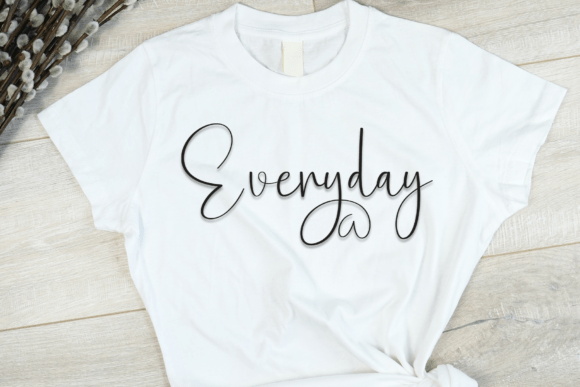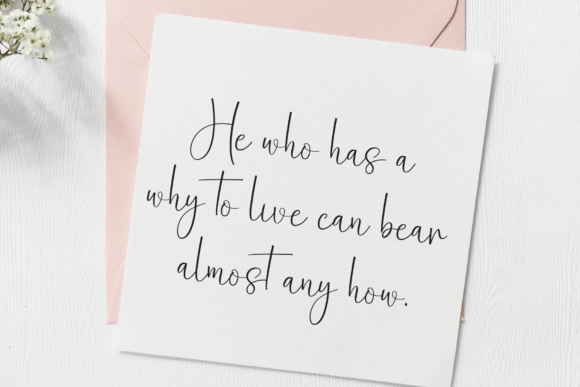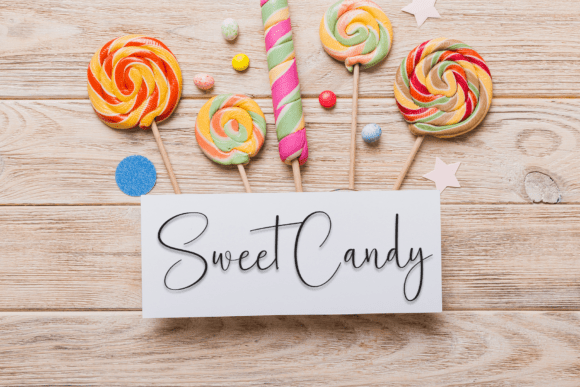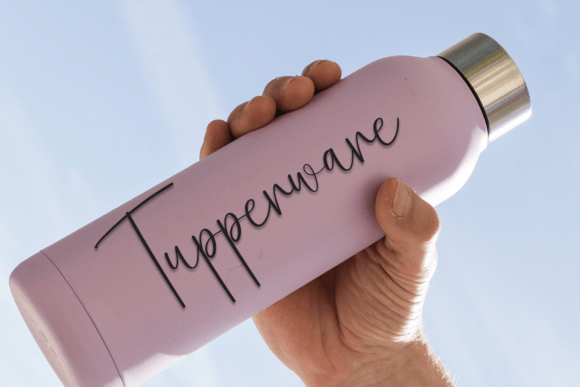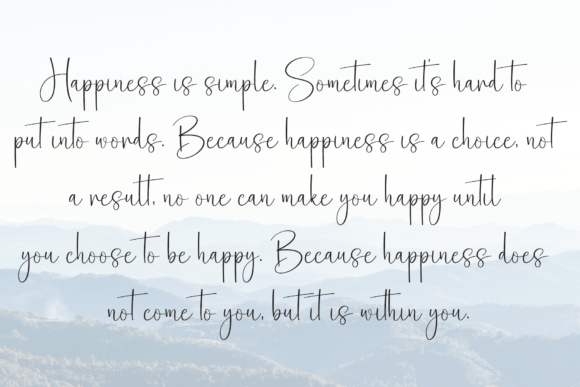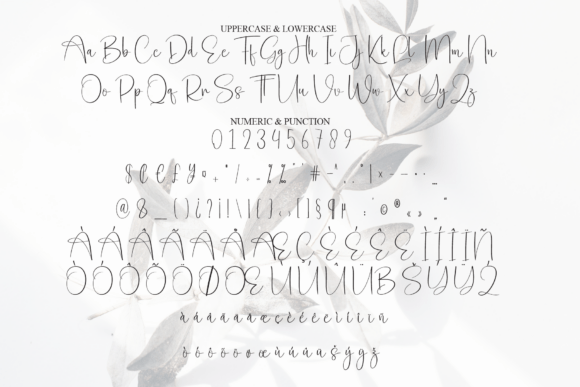
Introducing Delight Simple Font: Elevate Your Designs with Elegance and Whimsy
In the world of typography, few fonts manage to strike a balance between elegance and playfulness. Delight Simple Font is one such gem that brings a delicate, whimsical touch to any design project. This beautifully crafted handwritten font is perfect for designers, crafters, and anyone looking to add a personal and sophisticated flair to their work.
The Essence of Delight Simple Font
Delight Simple is characterized by its airy, graceful style, making it an excellent choice for projects that demand a sense of refinement and charm. The font features fine strokes that contribute to its delicate appearance, while charming swashes add a decorative element, perfect for titles, headings, and emphasis. Each letter in Delight Simple exudes warmth and elegance, ensuring that your designs stand out with a unique personality.
The versatility of Delight Simple Font makes it suitable for a wide range of applications. Here are some of the ideal uses for this beautiful font:
- Branding: Give your brand a touch of sophistication and approachability with Delight Simple. Its elegant and yet playful nature makes it perfect for logos, business cards, and brand guidelines.
- Invitations: Whether it’s a wedding invitation, birthday party, or baby shower, Delight Simple adds a whimsical and personal touch that sets the tone for your event.
- Greeting Cards: Create beautiful and heartfelt greeting cards for any occasion. The font’s charm and elegance shine through in physical or digital cards.
- Creative Projects: From DIY crafts to digital art, Delight Simple can be used to add a personal and unique element to your creations. It’s perfect for quotes, posters, and social media graphics.
Why Choose Delight Simple Font?
With so many fonts available, what makes Delight Simple stand out? Here are a few reasons why designers and crafters prefer Delight Simple:
- Unique Personality: Delight Simple offers a distinct look that can help your designs stand out in a crowded digital landscape.
- Ease of Use: Despite its elegant appearance, Delight Simple is easy to read and works well in both digital and print formats.
- Customization: The font comes with swashes and fine strokes that can be adjusted to fit your project’s needs, offering a high level of customization.
- Timeless Appeal: Unlike trendy fonts that may quickly go out of style, Delight Simple’s classic elegance ensures it remains relevant for years to come.
Tips for Using Delight Simple Font
To make the most of Delight Simple Font, consider the following tips:
- Pair with Complementary Fonts: For body text, pair Delight Simple with clean, sans-serif fonts to create contrast and enhance readability.
- Adjust Size and Color: Experiment with different sizes and colors to make your text stand out. Delight Simple looks stunning in pastel shades and soft neutrals.
- Utilize Swashes: Don’t be afraid to use the swashes to add flair to your headings and titles. They can make your text more visually appealing.
Delight Simple Font is a beautiful addition to any designer’s toolkit. Its unique blend of elegance, whimsy, and versatility makes it perfect for a wide range of projects. Whether you’re creating branding materials, invitations, greeting cards, or personal crafts, Delight Simple can help you achieve a sophisticated yet approachable look. Discover the charm of Delight Simple Font and elevate your designs with its delicate and whimsical charm.